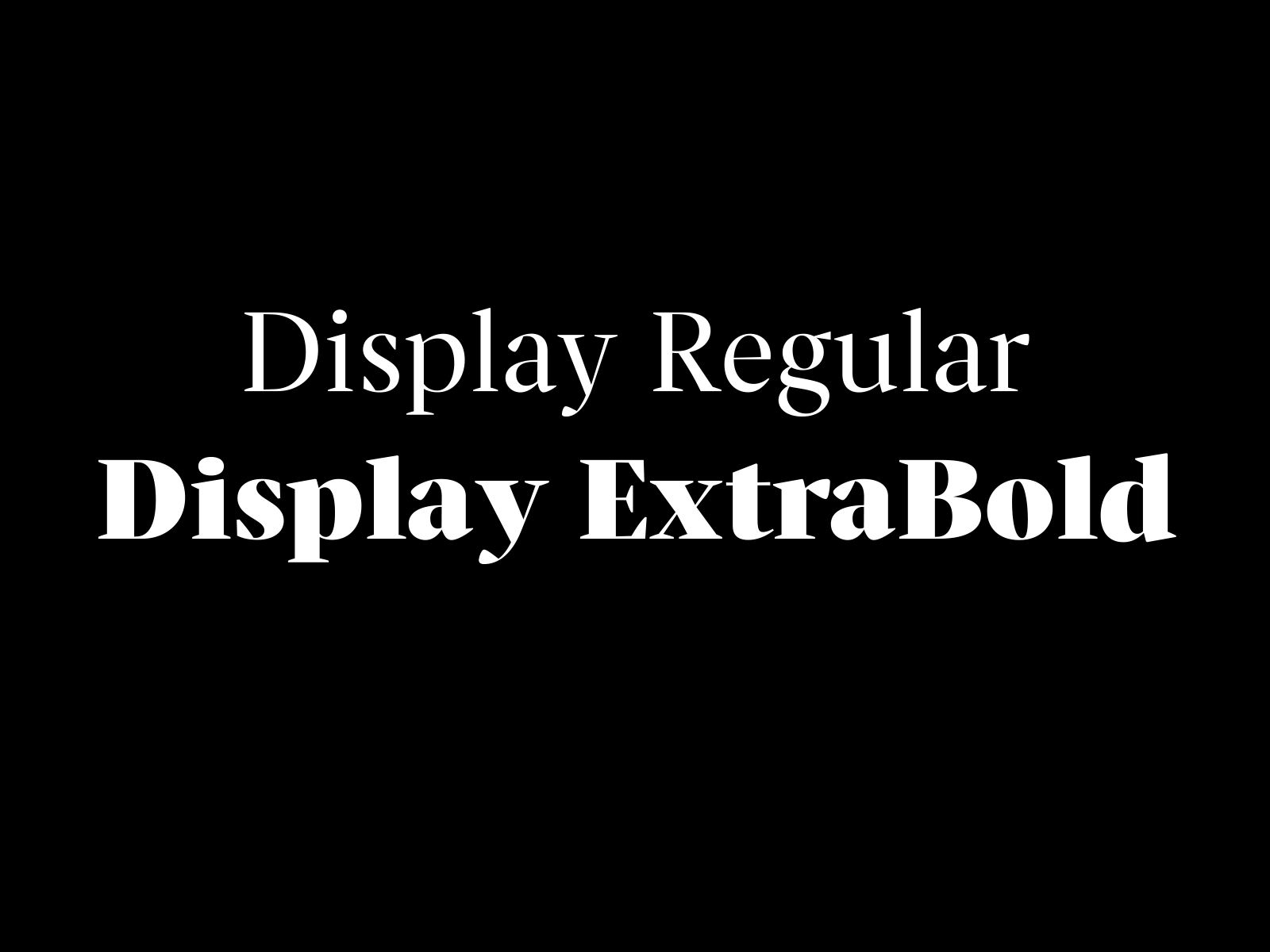
Wentworth
Wentworth is a typeface made for readability. Available in three styles: Caption, Text and Display; it is perfect for newspapers, magazines, periodicals and other editorial publications. It has been drawn to suit both print and screen: a reliable workhorse.
Wentworth started slowly, as I wanted to research newspaper types from history and learn what made them work – or not work. This has been as much a research project as a typeface project. I have barely scratched the surface, but I’m enjoying this new angle on type design, and can’t wait to keep exploring after TypeParis.
One day during the program I visited Jean François at his studio, Typofonderie. He hand-picked an array of books all about great typeface designers of the past, particularly those that have had a hand in newspaper type. I learned about Stanley Morrison, Gerard Unger, and even fell in love with Le Monde Journal by jfp himself. These served as an invaluable basis for Wentworth. Jfp told me a little about the different philosophies behind designers from different parts of the world, and the different approaches they take to solving the universal problems that come with printing text at very small sizes on cheap absorbent paper.